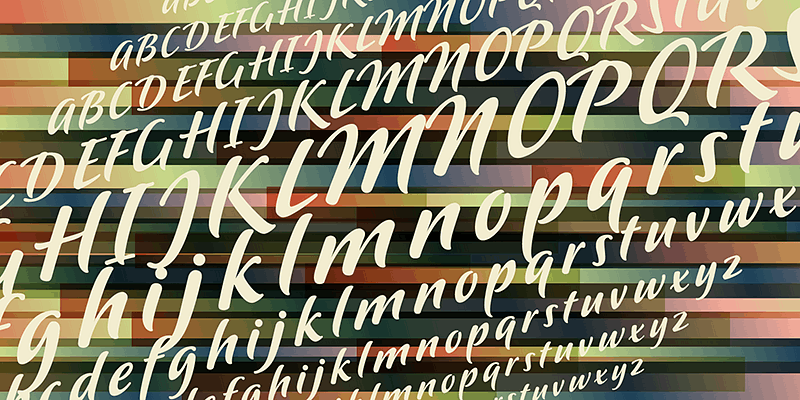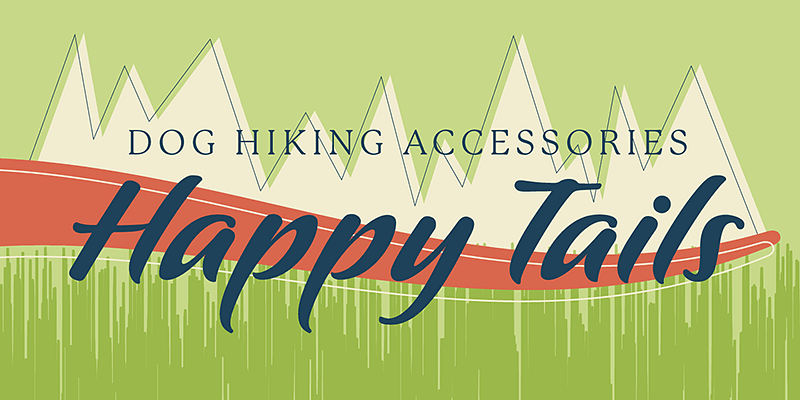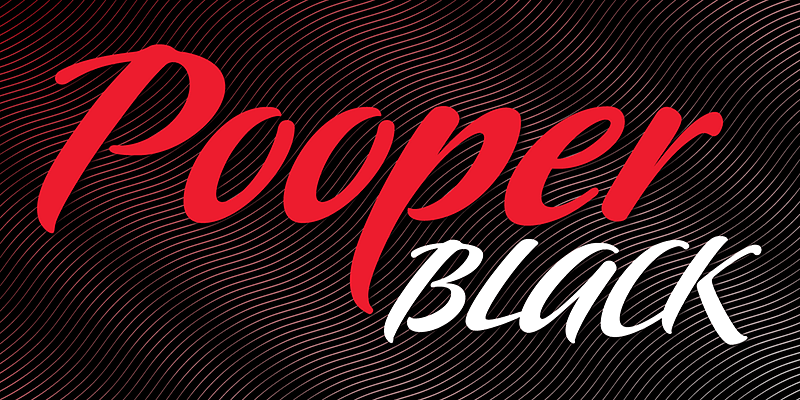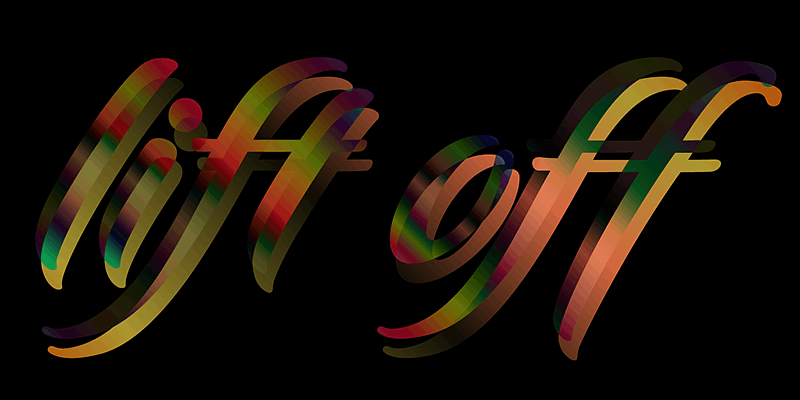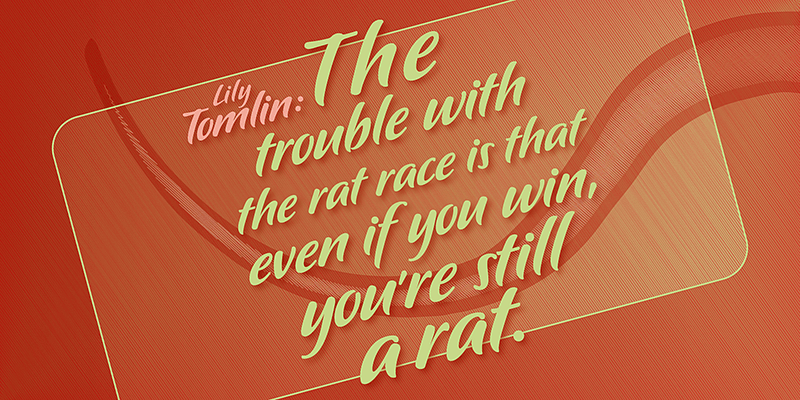
P22 Pooper Black Pro is based on a brush aesthetic and has an extreme axis that lends a certain amount of speed. A wonderful face for packaging, titling, and short bursts of text.